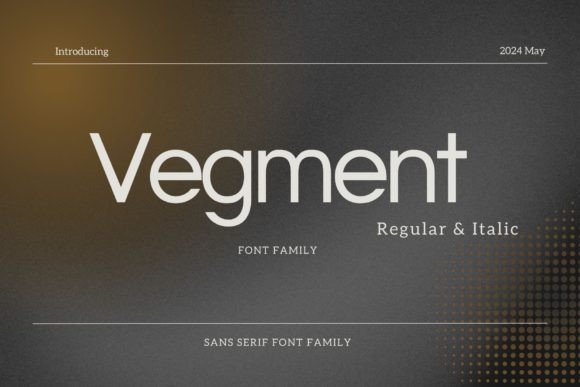
Testing Vegment Sans Serif in a Real Web Design Project
I was working on a redesign for a boutique online store, and the first thing I needed to decide was the typeface. The client wanted something modern but not too flashy—something that would feel professional yet approachable. That’s when I came across Vegment Sans Serif. At first glance, it stood out with its sharp, geometric letterforms and clean lines. It had a minimalist vibe that felt perfect for an e-commerce brand targeting a younger, design-savvy audience.
A Font That Feels Right at Home
Vegment has this crisp, almost futuristic look. It's a sans serif font with a strong sense of structure and balance. When I previewed it on the hero section of the site, it looked great over a full-screen image banner. The contrast between the dark background and the light text was clear, and the readability was immediately noticeable. Even on mobile screens, the letters didn’t get muddy or hard to read, which is a big win for responsive design.
The personality of Vegment is subtle but effective. It doesn’t scream for attention like some display fonts do. Instead, it carries a quiet confidence. This made it ideal for headlines, section titles, and call-to-action buttons. It gave the website a cohesive visual tone without being overwhelming.
Where Vegment Shines in Website Layouts
I started using Vegment for the main navigation bar and found that it worked well with the rest of the layout. Its simplicity allowed other design elements—like product images and icons—to take center stage. For the landing page headline, I paired it with a slightly bolder weight to emphasize the message. It felt just right for a brand that wanted to project both professionalism and creativity.
In the product sections, I used a lighter weight of Vegment for the body copy. It maintained legibility while keeping the tone friendly and approachable. I also experimented with using it for decorative accents, such as subheadings and feature highlights. It added a touch of sophistication without disrupting the flow of information.
One thing I noticed was how well Vegment played with other fonts. I paired it with a more traditional serif font for the blog section, which created a nice contrast between the modern and editorial styles. This helped differentiate content types and improve the overall visual hierarchy of the site.
Readability and User Experience Considerations
When testing Vegment on small buttons and short phrases, I made sure the spacing and line height were optimized. It handled tight spaces well, which is crucial for mobile users. I also tested it on dark backgrounds and found that it still maintained good contrast and clarity. This flexibility made it suitable for various parts of the site, from headers to footers.
Another thing I considered was performance. Since Vegment is a webfont, I checked its loading speed and file size. It loaded quickly without compromising on quality, which is essential for maintaining fast page load times and improving user engagement.
Designing with Brand Identity in Mind
Vegment’s clean and modern style aligned perfectly with the brand’s identity. It helped reinforce the idea of a sleek, contemporary online store. I used it consistently across all pages to ensure a unified brand experience. From the logo text to the checkout form labels, every instance of Vegment contributed to a polished and professional feel.
I also considered multilingual support, which was important since the store planned to expand into international markets. Vegment offered good coverage for different languages, making it a solid choice for a global audience.
For the digital brand kit, I included Vegment as the primary typeface. It became the foundation for all marketing materials, social media graphics, and email templates. Its versatility made it easy to adapt to different formats and platforms without losing its core character.
Final Notes on Using Vegment
If you're looking for a versatile sans serif font that balances modernity with readability, Vegment is worth considering. It works well in a variety of contexts—from hero sections to body copy—and can be easily integrated into any digital design project. Whether you're building a portfolio site, launching a course, or redesigning a blog, Vegment offers a clean and professional look that enhances the overall user experience.